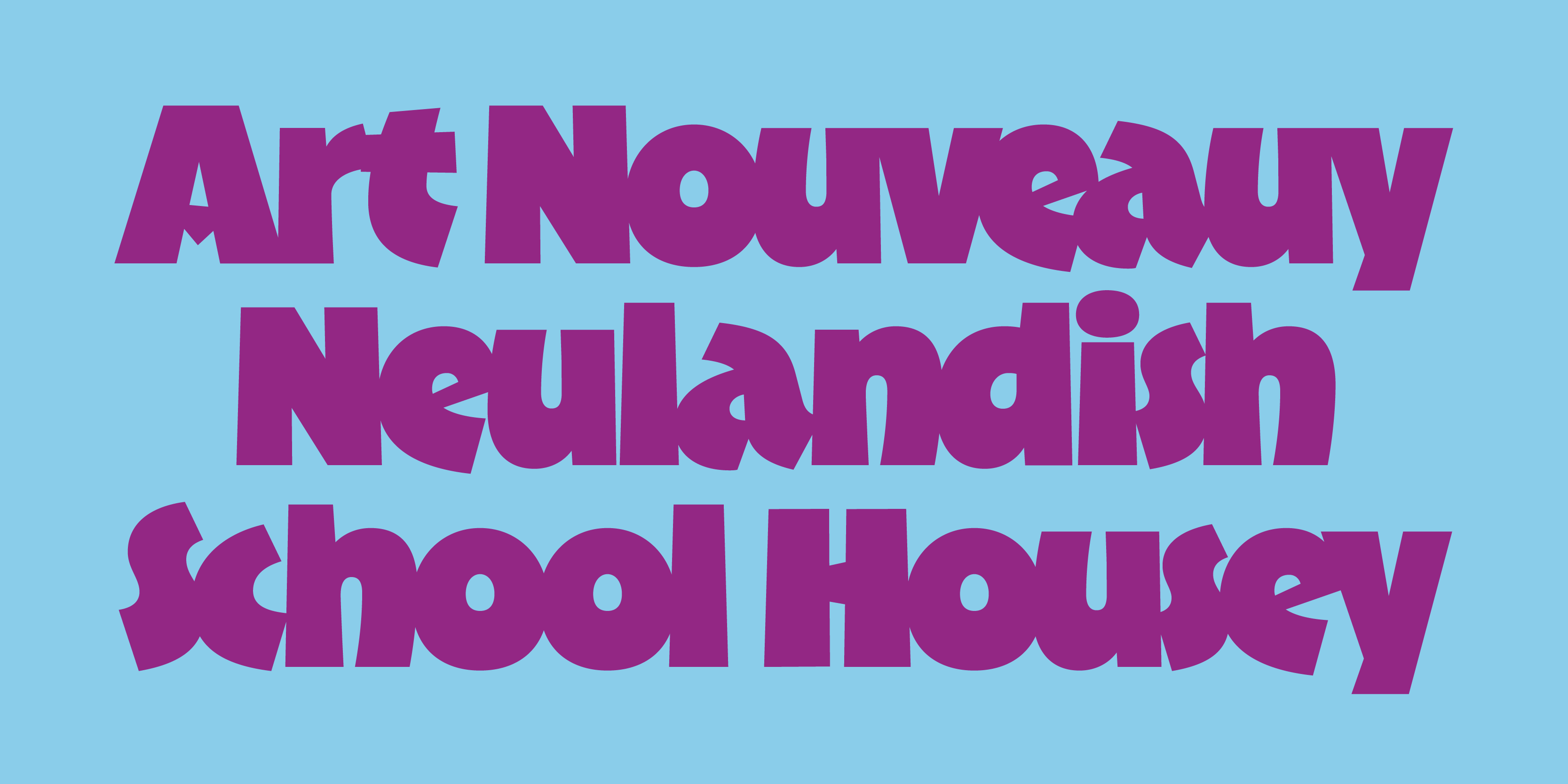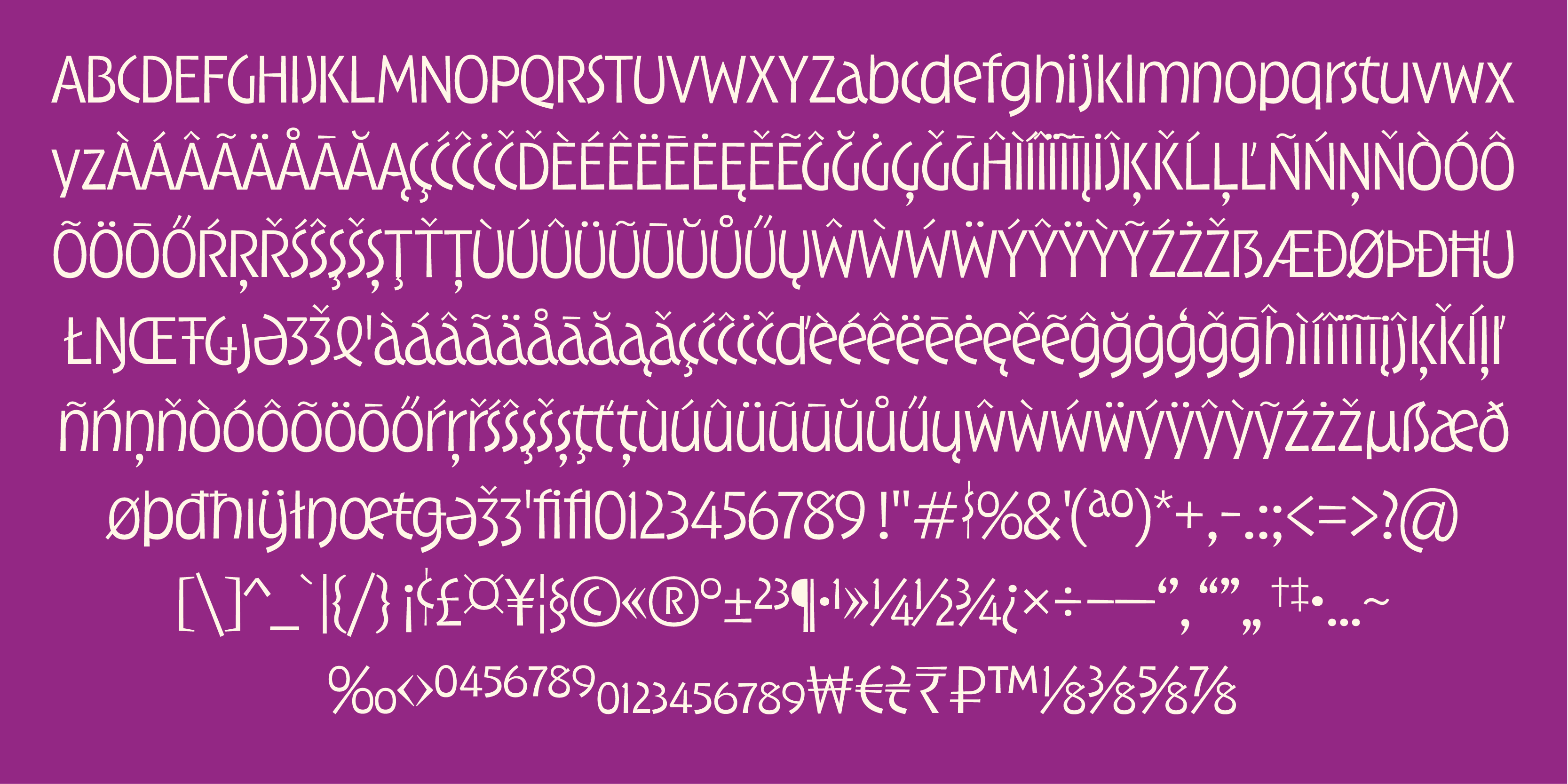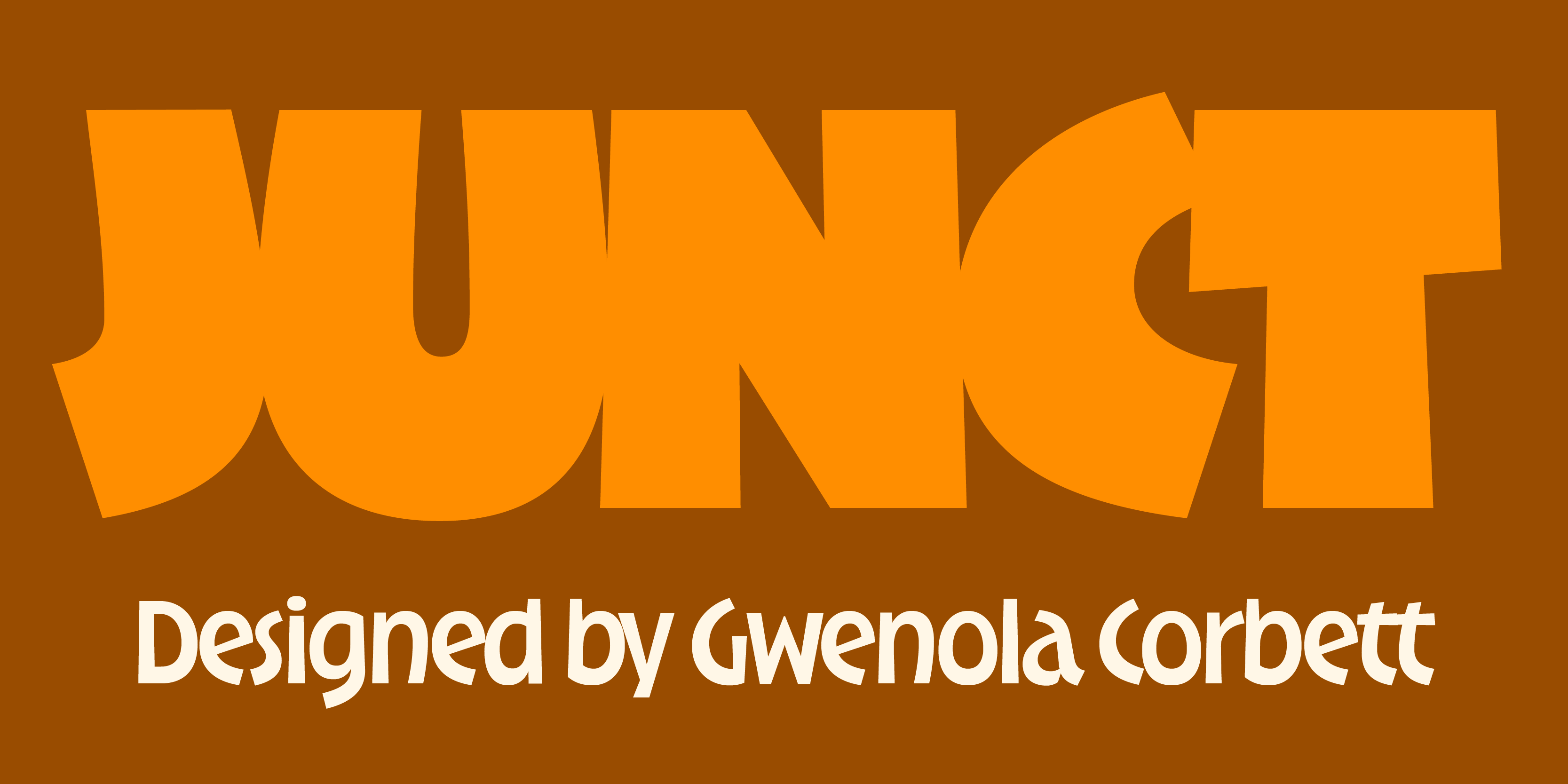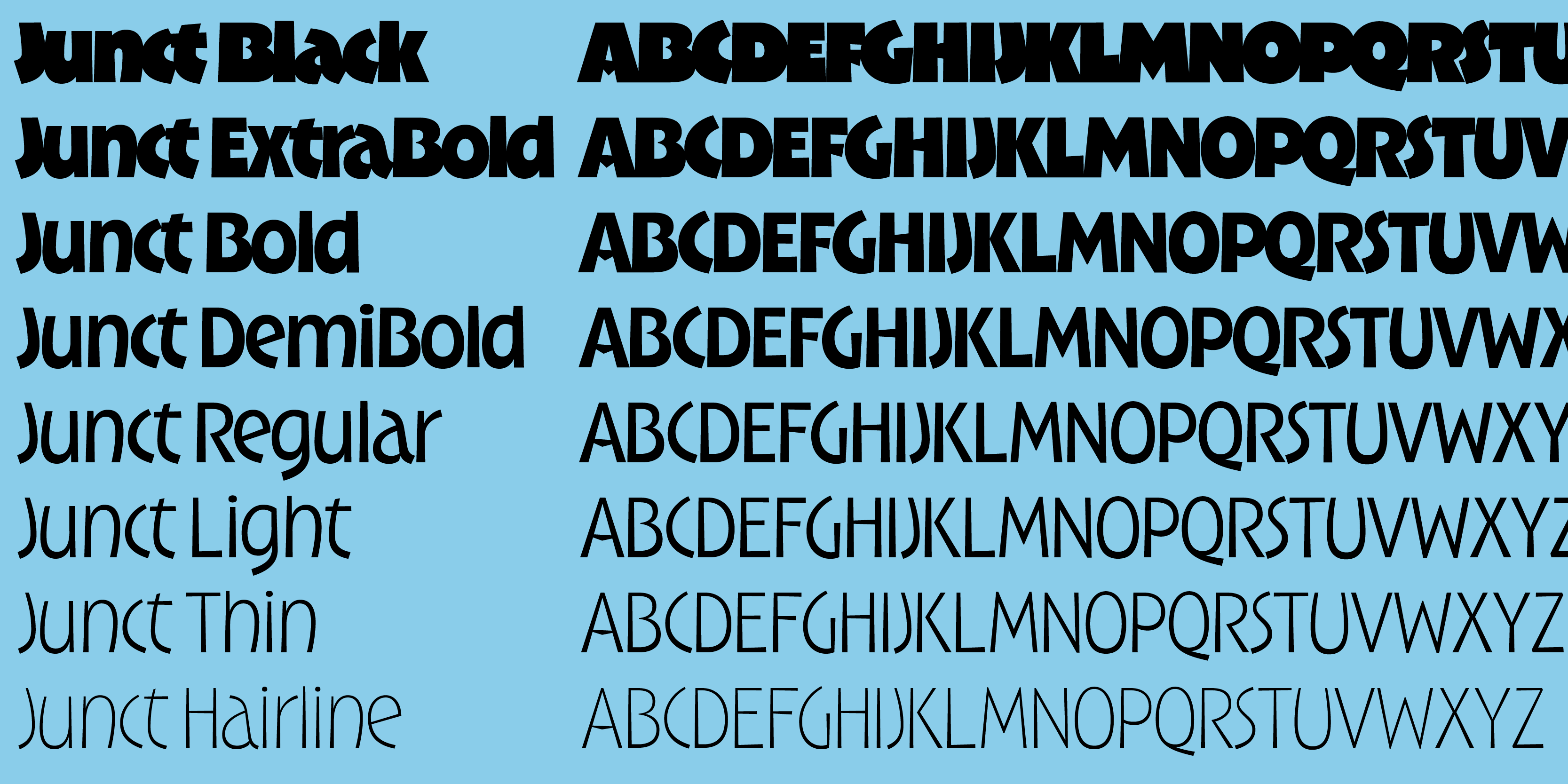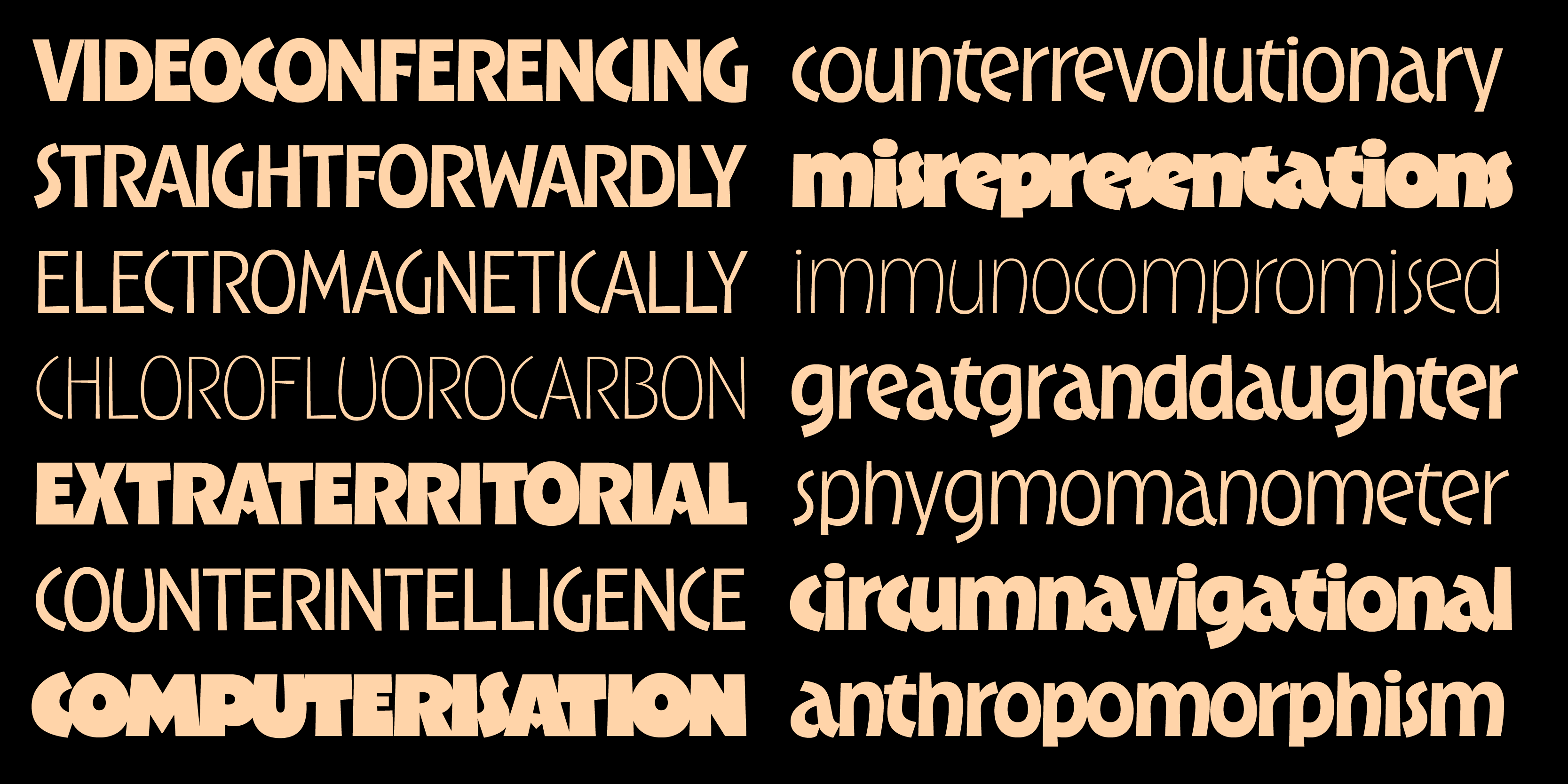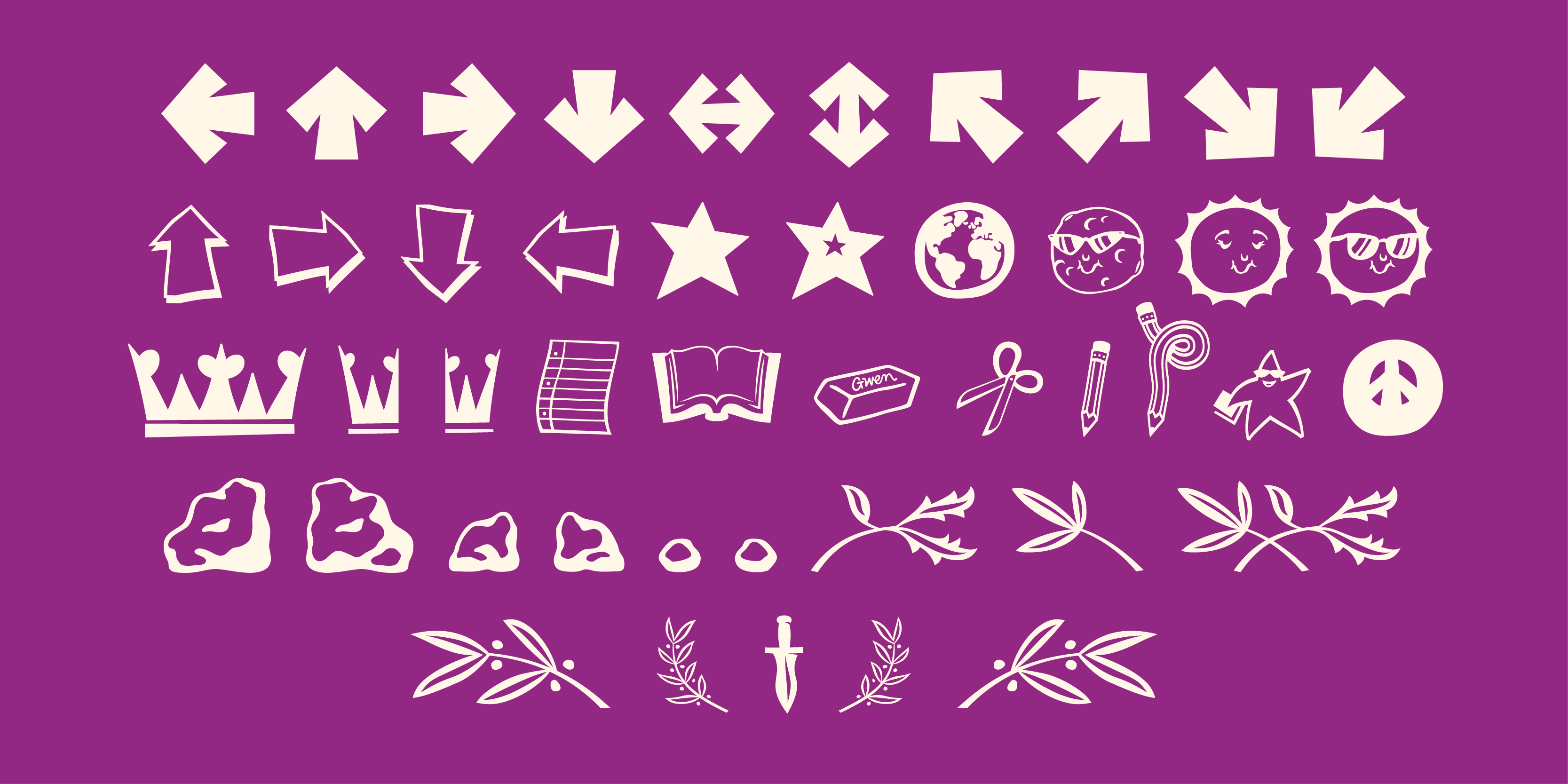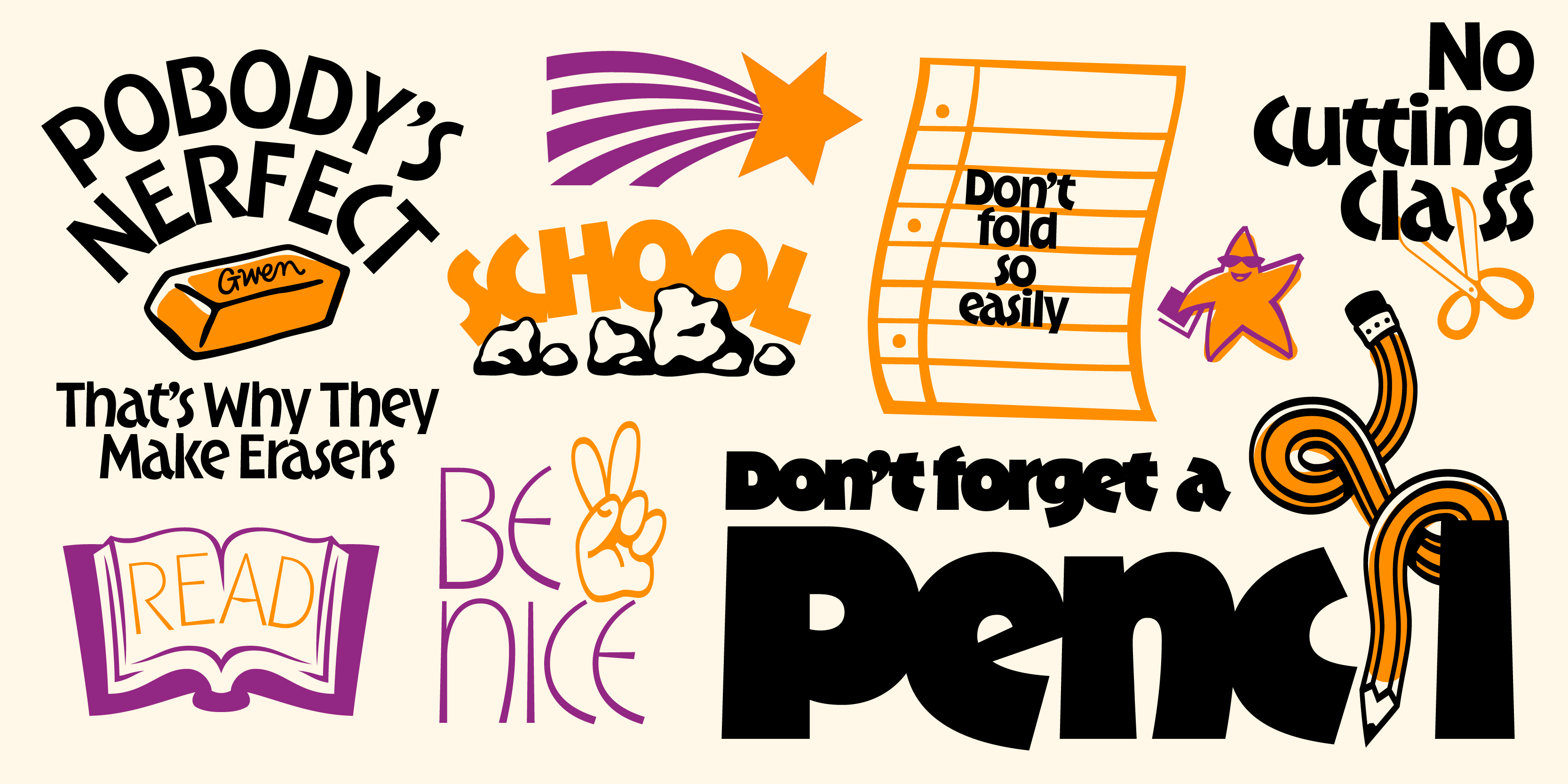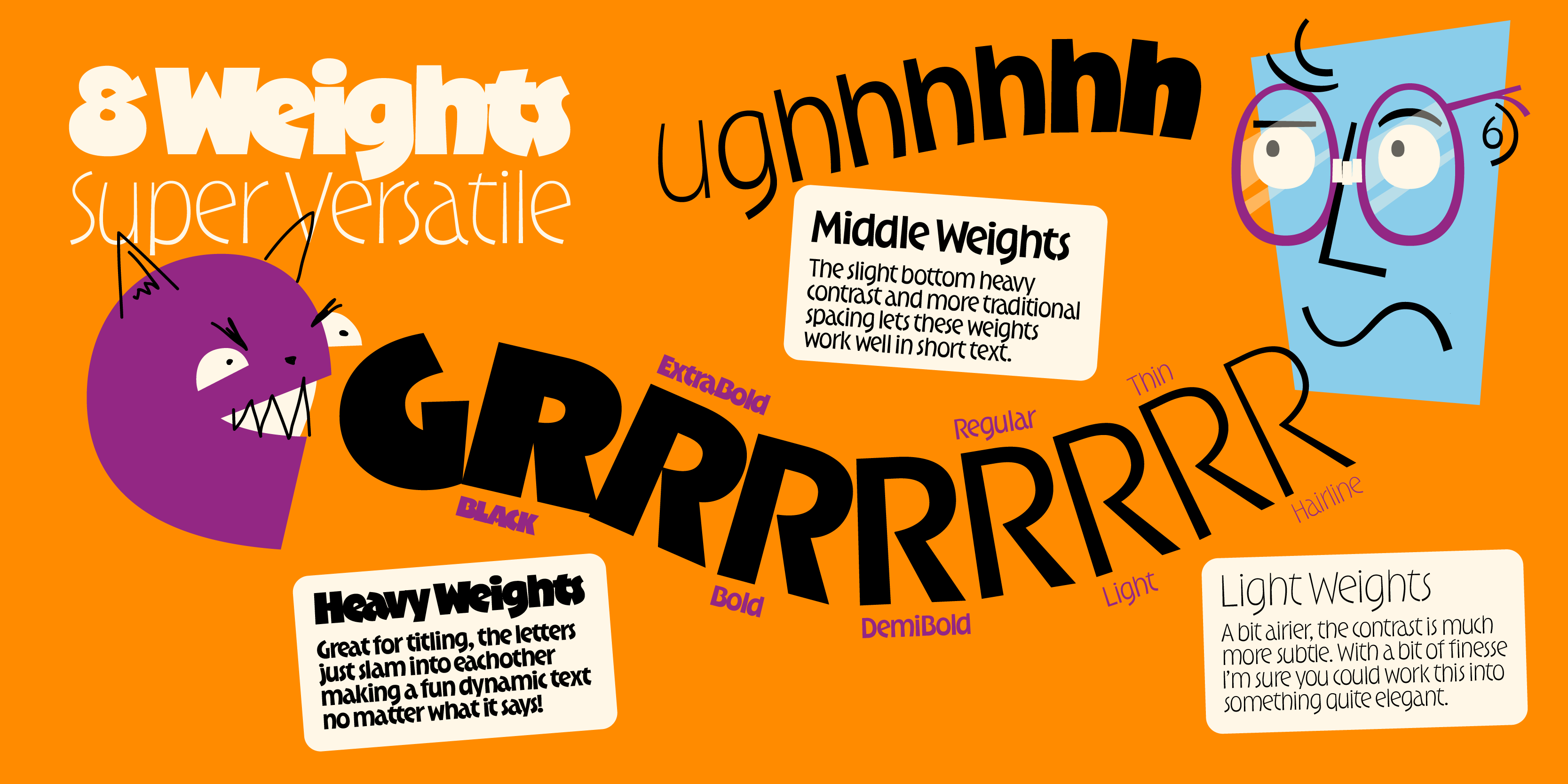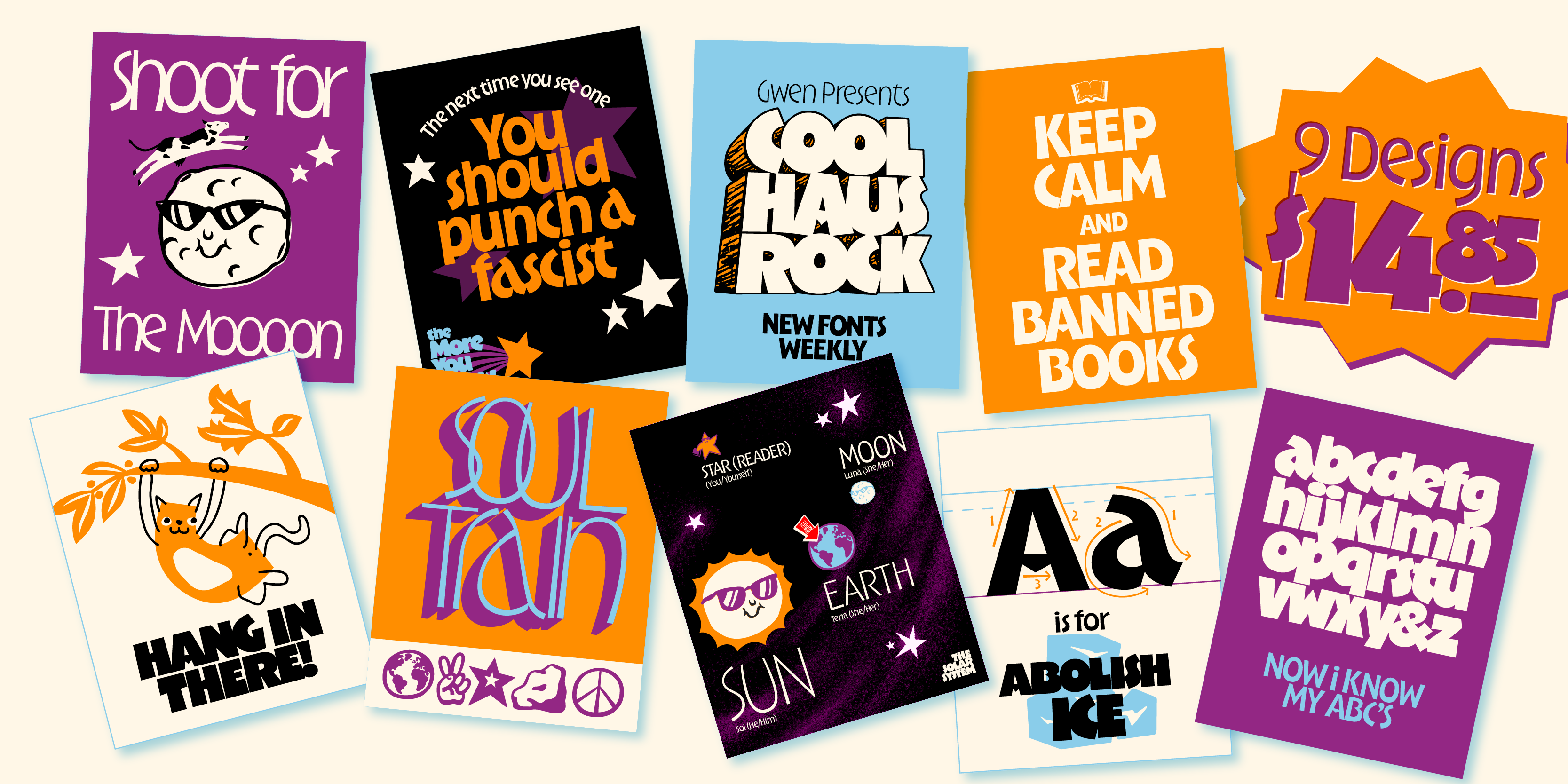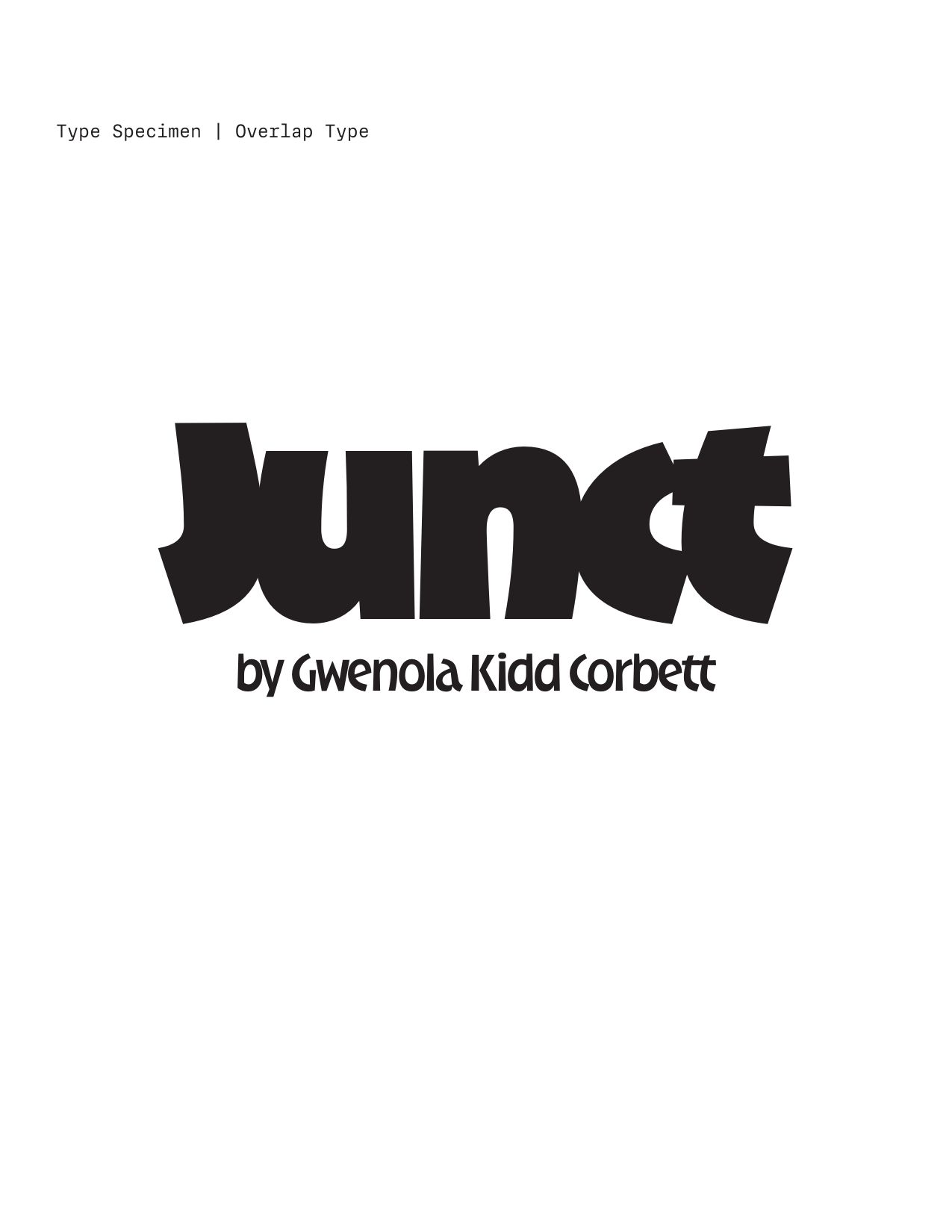
Junct
Junct is at its core two things: a (sort of) revival of Rudolf Koch's Neuland, and an extrapolation of the Schoolhouse Rock! logo drawn by Tom Yohe. Both sources use bold letters in a playful and loose way, which is a great descriptor for Gwen's design and work in general. The organic curves and bottom-heavy contrast let it overlap naturally with a sense of stability at the baseline.
We think Junct is an easy choice for setting titles big and loud, but it also works hard across the eight weights to be useful in a range of applications. Junct is available as the full 8-weight family, single styles, or something we are calling "Team Extreme" that contains both the Black and Hairline weights.